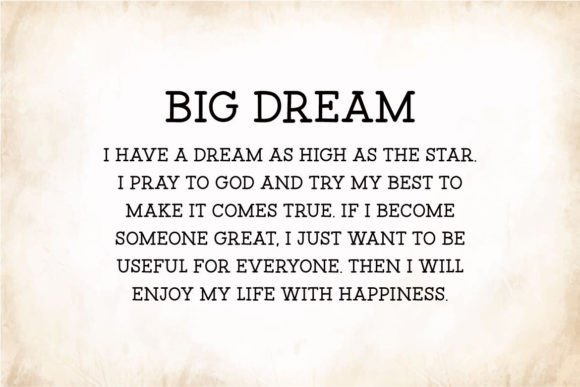
Hyper Writer Font
Hyper Writer font: A vintage typewriter-style typeface that brings the nostalgia of old-school typing to your designs. Add a touch of classic charm and a hint of literary flair with Hyper Writer.